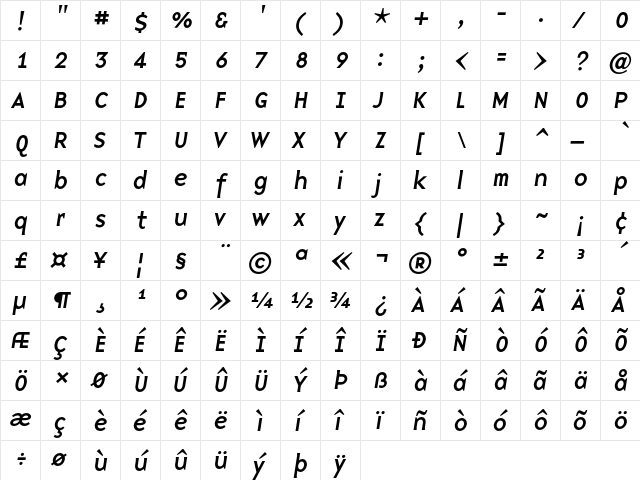
BaseNine Italic
Design Context for BaseNine Typeface
BaseNine is a composed and adaptable typeface that performs quietly and consistently across a wide range of design contexts. Its italic angle brings a sense of urgency and motion to the letterforms.
Pro Tip: Try BaseNine for annotation and caption copy alongside an upright companion — the contrast in angle creates a dynamic but ordered typographic system.